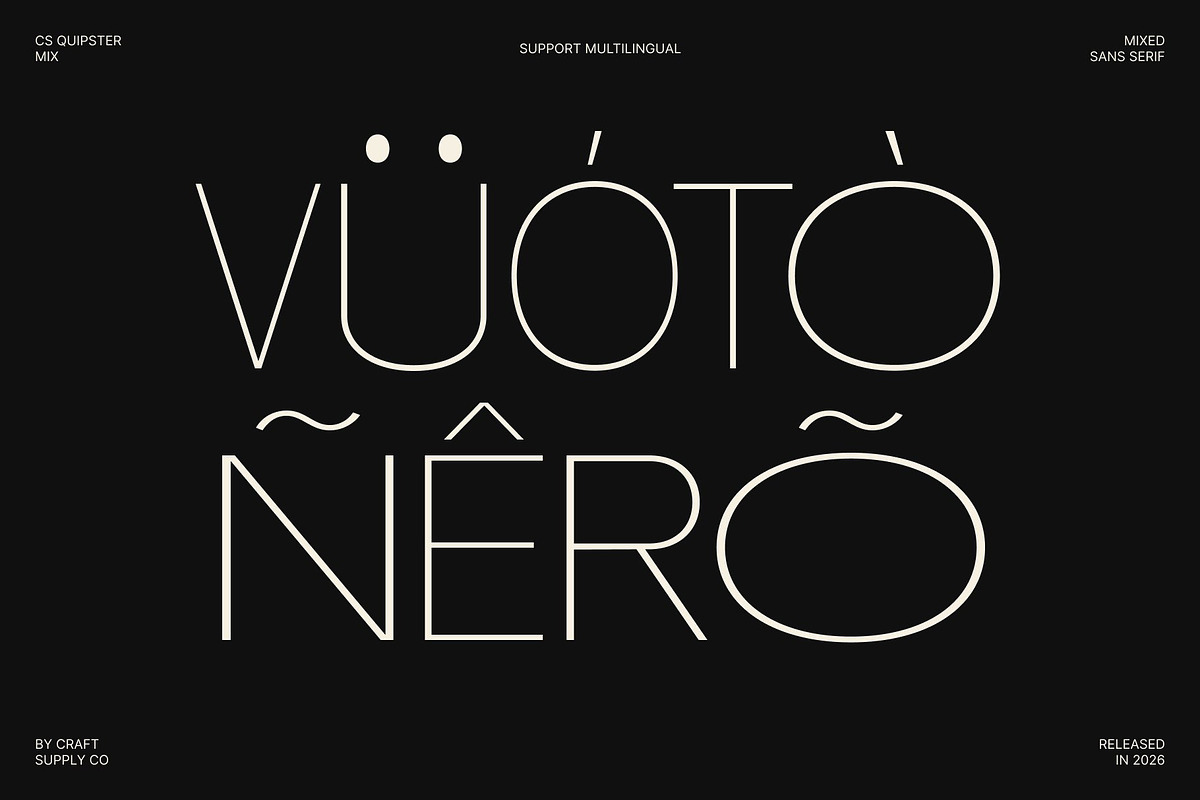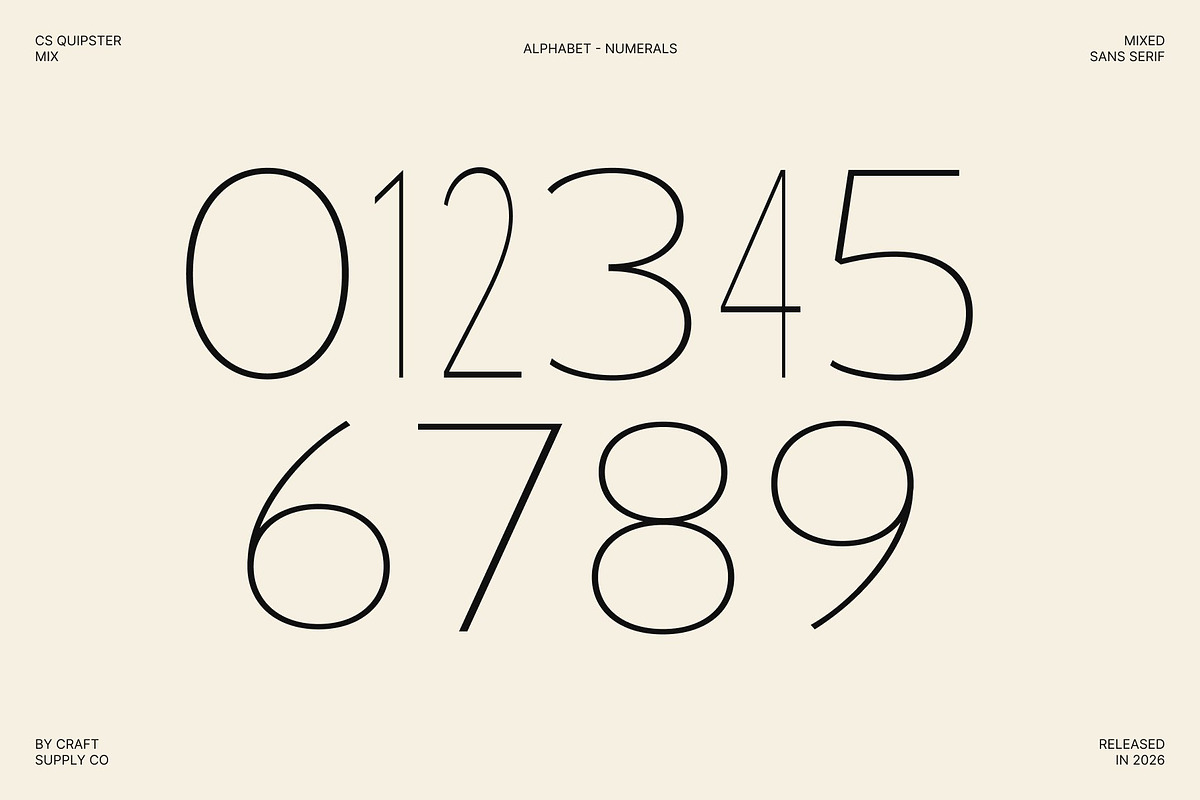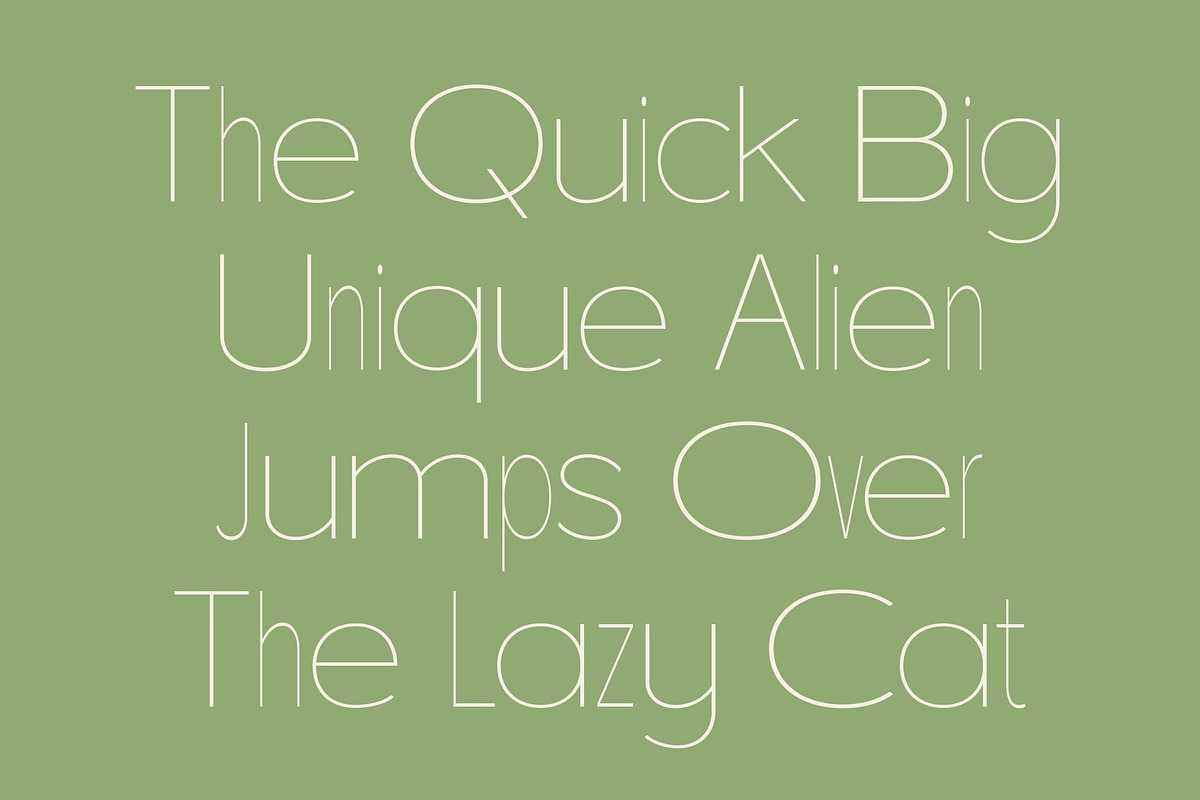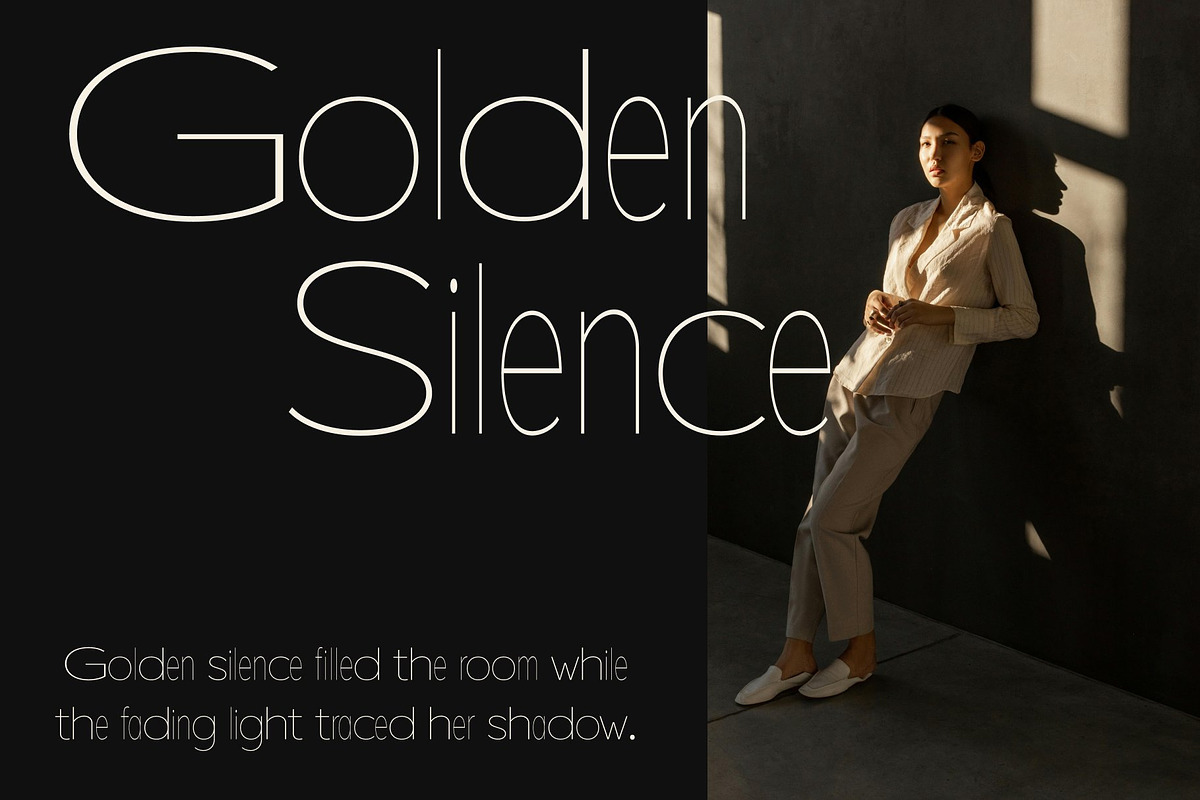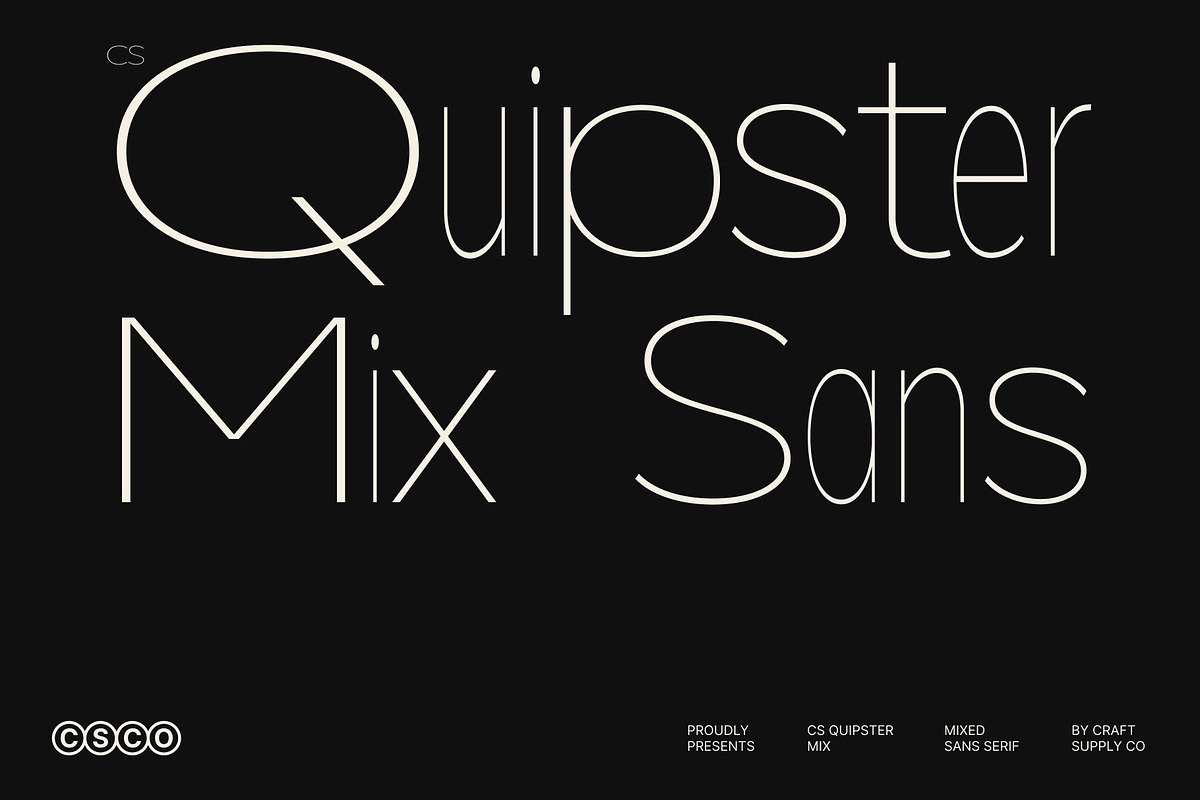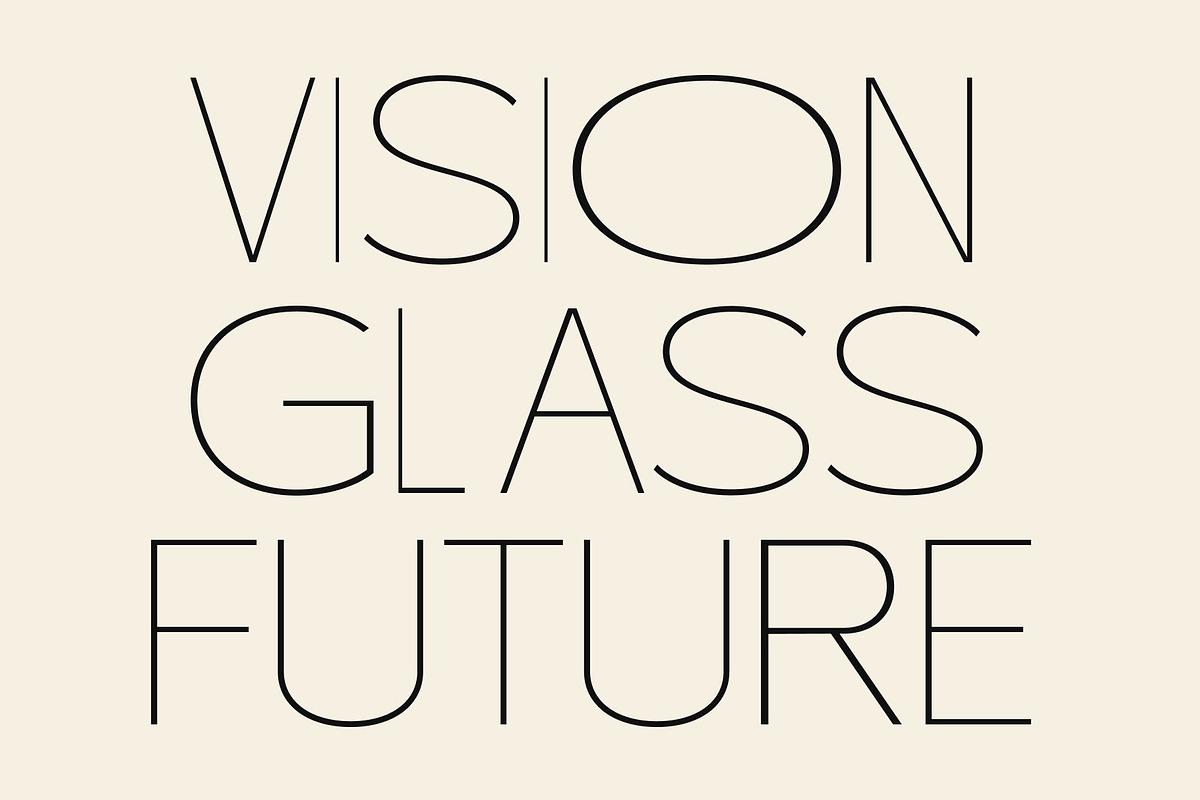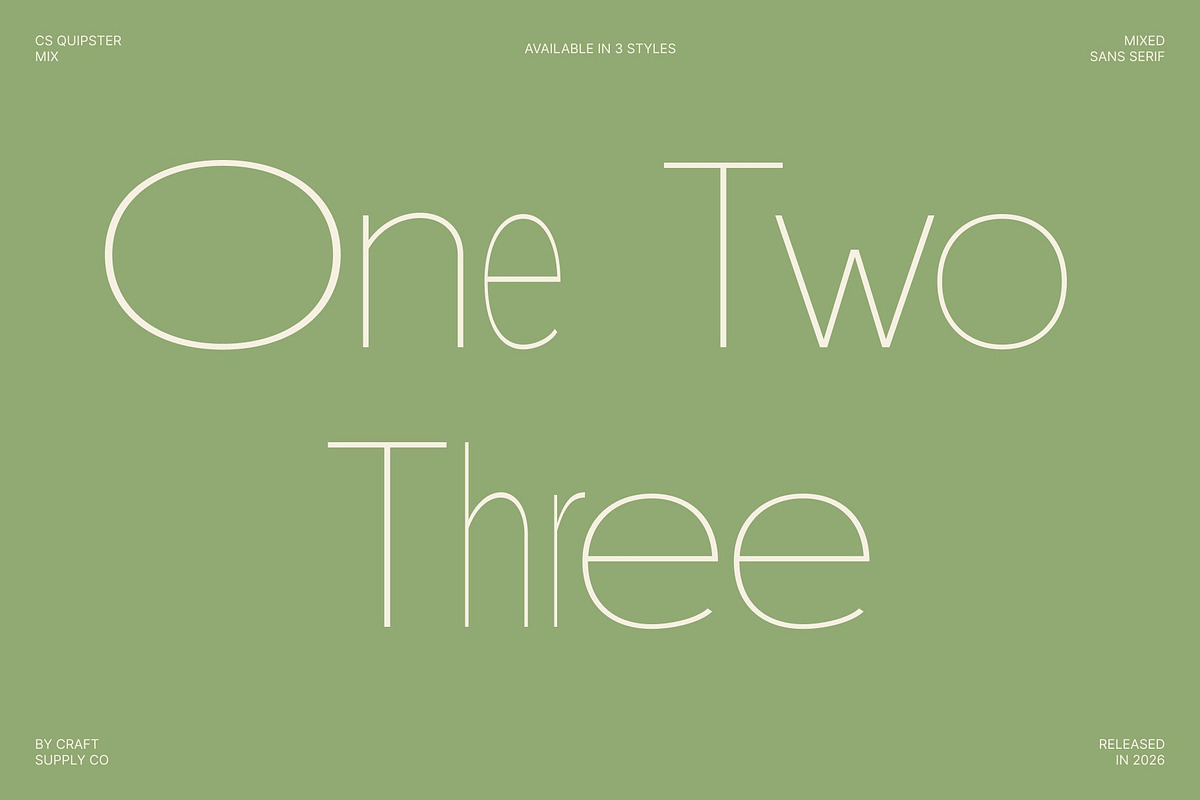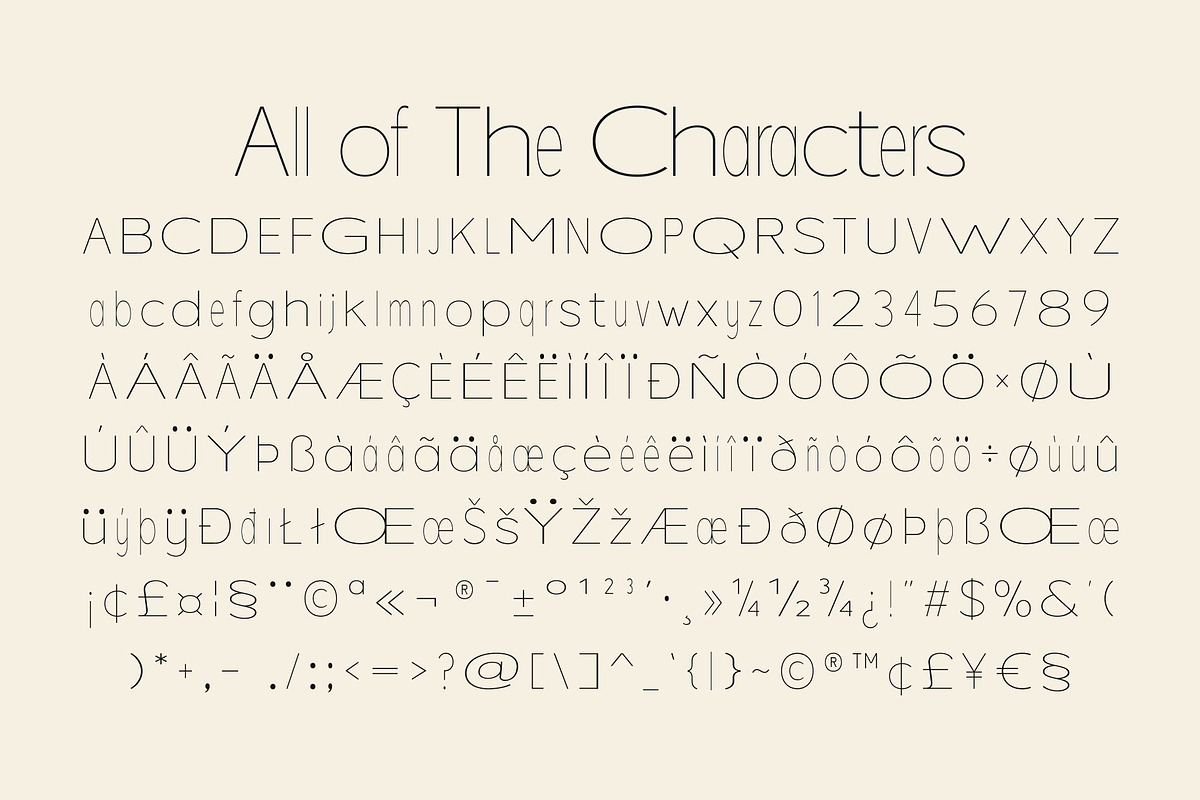
CS Quipster Mix
CS Quipster Mix – Thin Geometric Sans Serif: Minimal Elegance with Contemporary Precision
Thin Geometric Sans Serif with Mixed Style Character This is a thin geometric sans serif font designed to express elegance, clarity, and modern sophistication. Built with refined proportions and minimalist geometry, this typeface introduces a distinctive mixed-style concept that adds subtle rhythm and visual contrast to every composition. It transforms clean typography into a stylish design element that feels contemporary, light, and highly professional.
A Refined Blend of Thin and Regular Letterforms The defining feature of this font lies in its thoughtful fusion of thin and regular styles. This mixed-weight approach creates a smooth typographic hierarchy that enhances readability while preserving the font’s sleek and airy aesthetic. The subtle variation in stroke weight gives layouts a dynamic and polished appearance without disrupting the minimalist structure.
Minimalist Geometry with Elegant Clarity This font embraces geometric precision through balanced spacing, clean lines, and harmonious construction. Its slender forms communicate sophistication and professionalism, making it ideal for projects that require a modern and refined visual tone.
Perfect for Branding, Editorial, and Modern Visual Design From branding and editorial layouts to posters and digital graphics, this font adapts effortlessly across a wide range of creative applications. Its elegant readability performs beautifully in both print and digital media, while its contemporary geometric style keeps designs looking fresh and sophisticated.